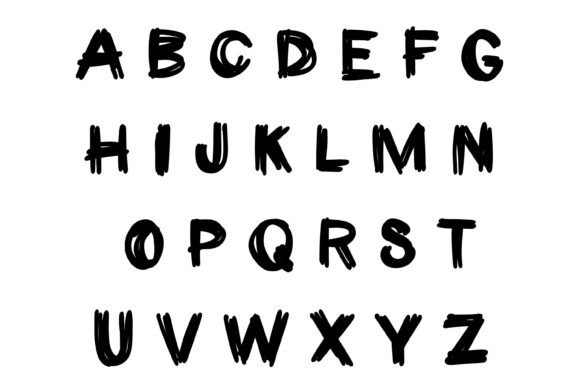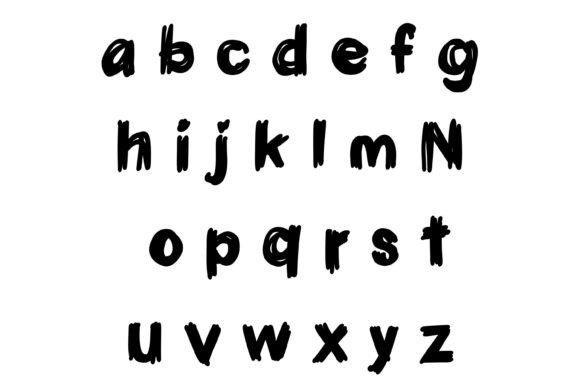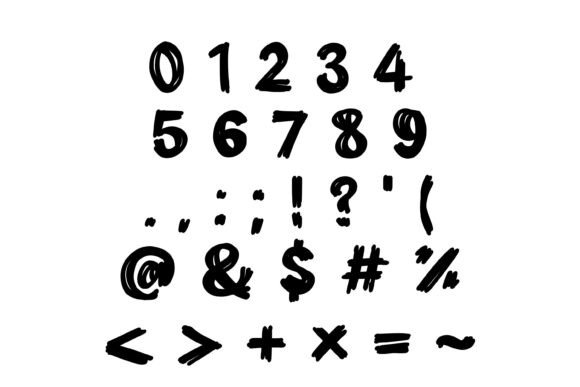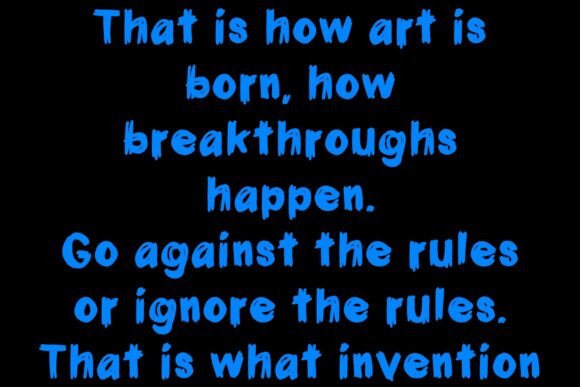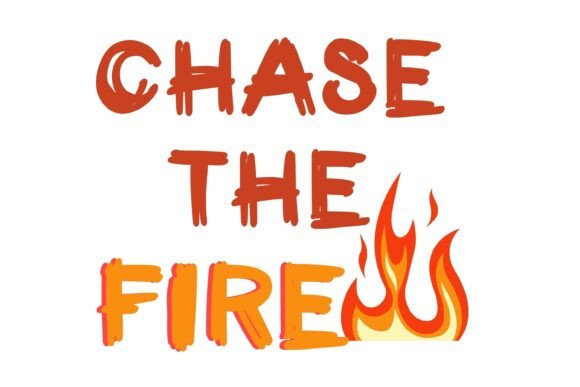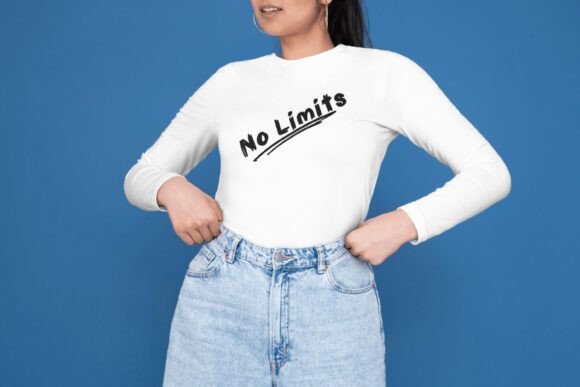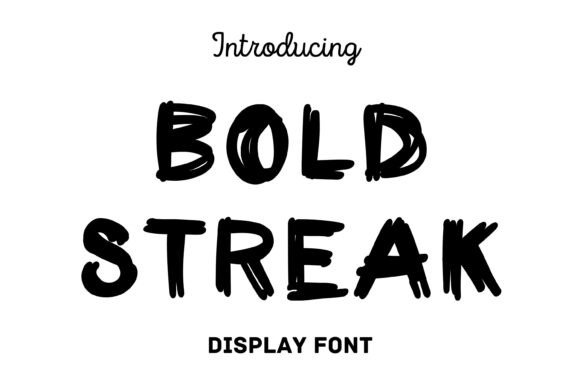
Unleash Your Creativity with Bold Streak Font: The Urban Energy Your Designs Need
In the world of design, fonts play a pivotal role in conveying messages, evoking emotions, and creating lasting impressions. For designers and crafters looking to infuse their projects with a raw, urban energy, the Bold Streak Font is an exceptional choice. This hand-drawn display font is not just a typeface; it’s a statement piece that brings a bold, expressive vibe to any design.
Inspiration from Thick Marker Strokes
Bold Streak Font draws its inspiration from the thick, expressive strokes of markers, giving it a unique, hand-drawn feel that’s perfect for modern designs. This font is not about precision or perfection; it’s about character and personality. Each letter is crafted to convey a sense of energy and movement, making it an ideal choice for projects that demand attention and exude an urban aesthetic.
Perfect for Modern Designs
Whether you’re working on graphics, branding, apparel, or posters, Bold Streak Font is versatile enough to elevate any project. Its bold nature makes it particularly suited for:
- Street-Style Merch: Give your apparel designs a trendy, urban twist that resonates with a younger audience.
- Social Media Visuals: Stand out in crowded social media feeds with high-impact headlines and eye-catching graphics.
- Posters: Create bold, impactful posters for events, promotions, or awareness campaigns that demand attention.
Key Features of Bold Streak Font
What sets Bold Streak Font apart? Here are a few key features:
- Hand-Drawn: Each letter is meticulously hand-drawn, giving the font its unique character and charm.
- Urban Energy: The font embodies a raw, urban vibe that’s perfect for designs looking to make a bold statement.
- Expressive: With its thick strokes and dynamic style, Bold Streak Font adds an expressive touch to any design.
- Versatile: Suitable for a wide range of projects, from digital graphics to print materials.
Tips for Using Bold Streak Font
To get the most out of Bold Streak Font, consider the following tips:
- Pair with Simpler Fonts: For optimal readability, pair Bold Streak with simpler fonts for body text or secondary headings.
- Experiment with Colors: Don’t be afraid to experiment with bold, contrasting colors to enhance the urban feel.
- Play with Sizes: Utilize different font sizes to create visual hierarchy and emphasize key messages.
Bold Streak Font is more than just a font; it’s a design statement that brings an unmatched level of energy and personality to your projects. Whether you’re a designer looking to elevate your branding, a crafter seeking to add a unique touch to your merchandise, or a social media enthusiast aiming to make your visuals pop, Bold Streak Font is the perfect tool for your creative arsenal. Embrace the urban vibe, unleash your creativity, and let Bold Streak Font be the voice that makes your designs heard.